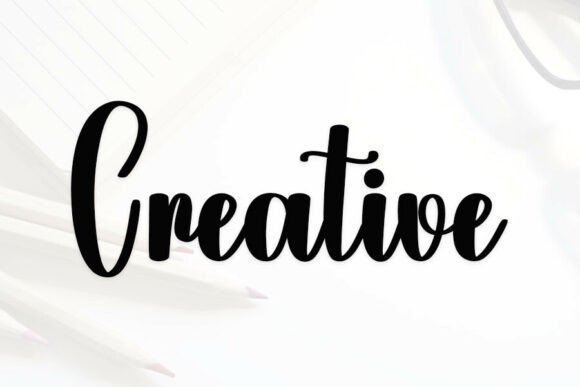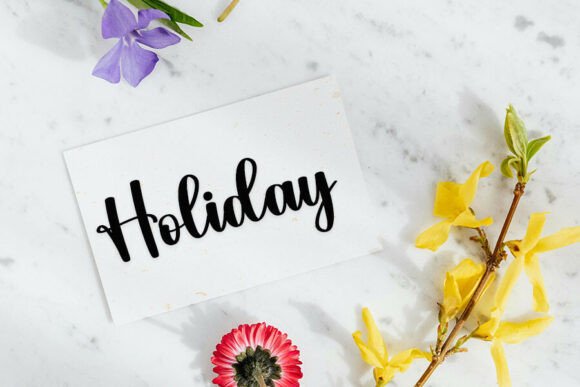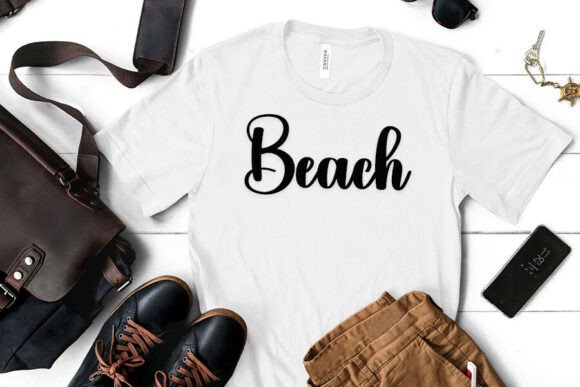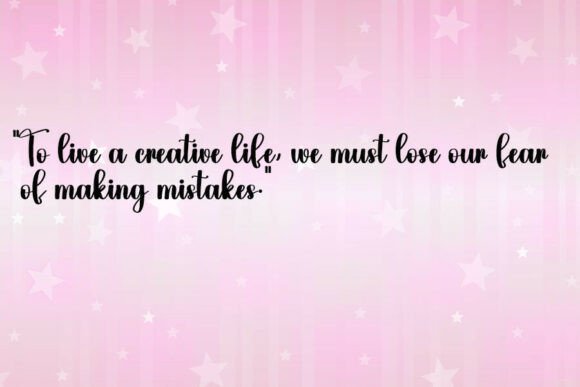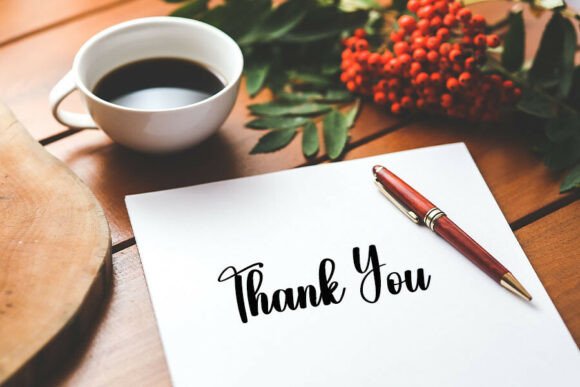
The Ultimate Guide to Birthday Font: Elevate Your Designs with a Celebratory Touch
I’ll never forget the time I was working on a project for a client’s birthday party invitation. I had the design concept all sorted out, but I was struggling to find the perfect font to capture the festive and celebratory vibe. That’s when I stumbled upon the Birthday font, and it instantly became the star of the show! 🎉 In this article, I’ll share my love for this modern calligraphy font, its features, and how to make the most of it in your designs.
What Makes Birthday Font So Special?
Birthday is a bold and celebratory script font that boasts a warm, calligraphic silhouette. Its heavy letterforms, smooth joins, and stable vertical axis make it a modern calligraphy font that’s both grounded and artisanal. The soft, rounded terminals and rhythmic visual flow add a customized touch that’s perfect for festive event branding, contemporary greeting cards, playful product labels, and vibrant social media headers.
My Honest Review
- ✨ Unique and eye-catching design: The font’s bold and celebratory feel makes it perfect for grabbing attention.
- ✅ Ease of use: The font is easy to read and works well in various design contexts.
- 💕 Emotional connection: The warm and calligraphic feel of the font evokes a sense of joy and celebration.
- 🤔 Limited use in formal designs: The font’s bold and playful nature might not be suitable for formal or professional designs.
- ⚠️ Kerning issues: As with any font, some users might experience kerning issues, especially when using the font at smaller sizes.
The Backstory Behind Birthday Font
Birthday font was designed with the intention of capturing the joy and celebration of special occasions. Its creator aimed to craft a font that would evoke a sense of warmth and festivity, making it perfect for designs that require a bold and playful touch. Whether it’s a birthday party invitation or a social media header, Birthday font is sure to bring a smile to people’s faces.
| Font Name | Birthday Font |
| What type of designs is Birthday font best suited for? | Birthday font is perfect for festive event branding, contemporary greeting cards, playful product labels, and vibrant social media headers. |
| Is Birthday font suitable for formal designs? | No, Birthday font’s bold and playful nature makes it more suitable for informal and celebratory designs. |
| Does Birthday font support OpenType features? | Yes, Birthday font supports OpenType features, such as Stylistic Alternates and Glyphs, which can be used to add more personality to your text. |